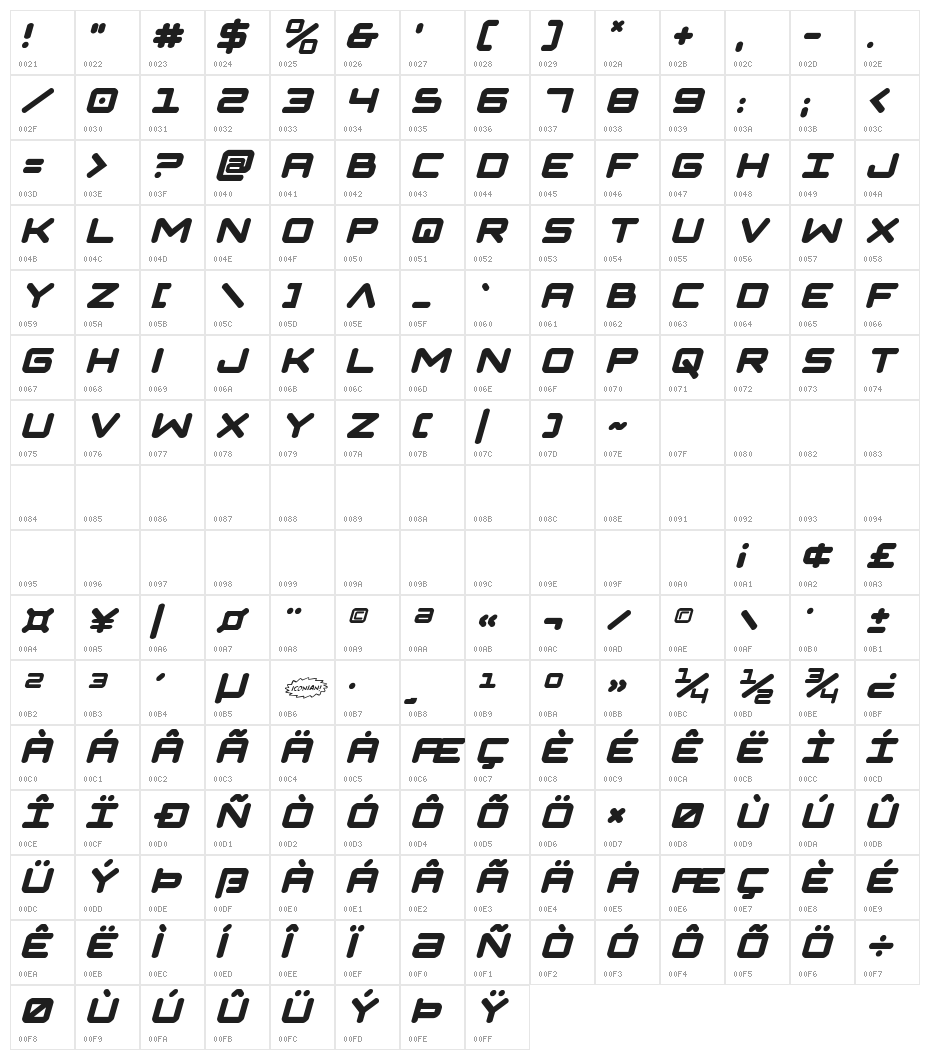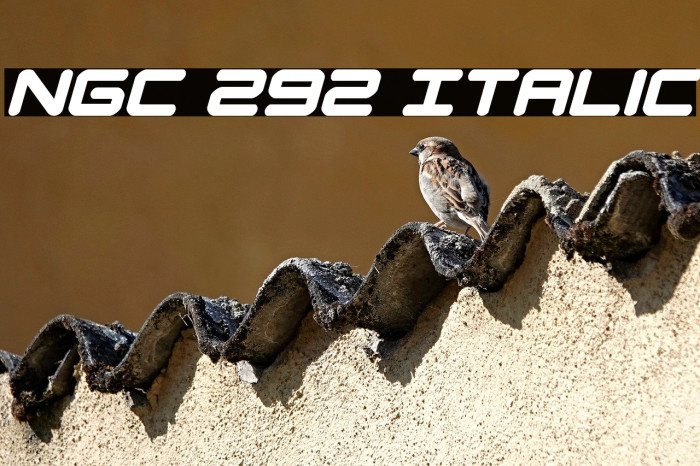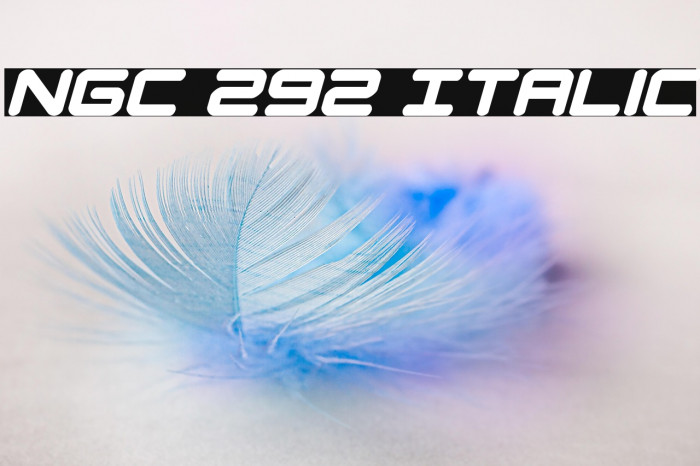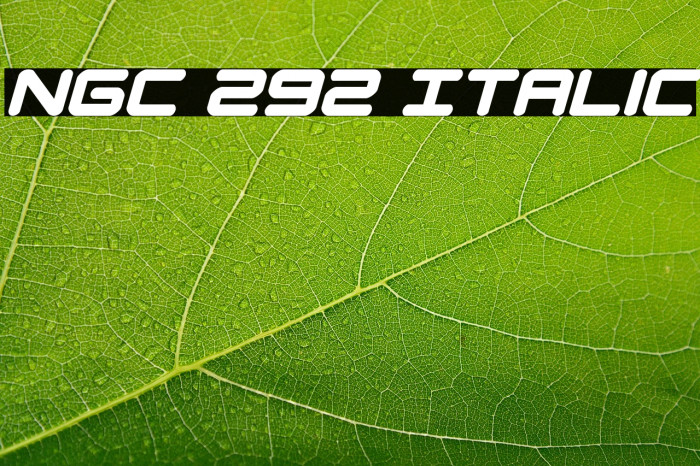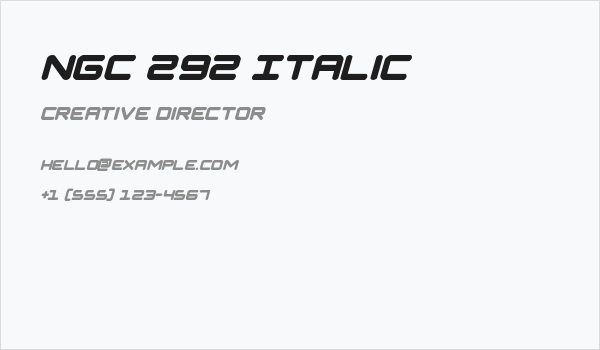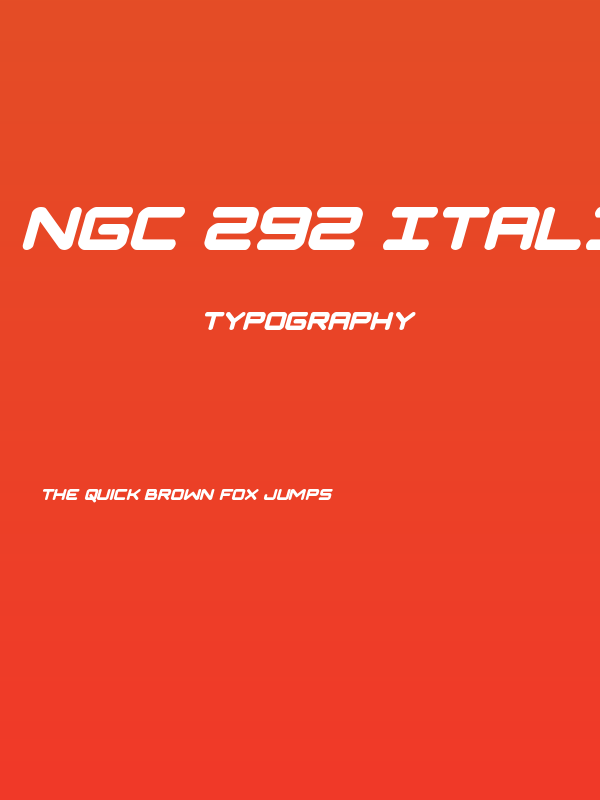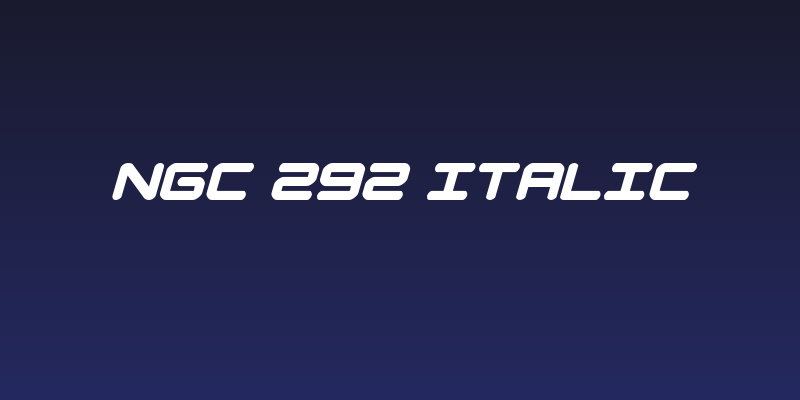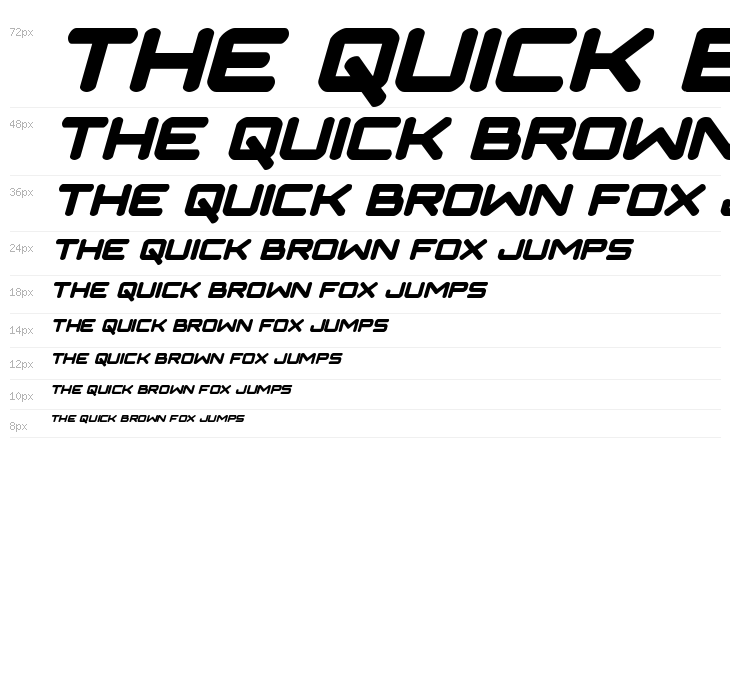
NGC 292 Italic Font
NGC 292 Italic Description
This font features a modern, italicized design with a sleek and futuristic appearance. The characters are slightly slanted, giving a sense of motion and dynamism. The strokes are consistent in thickness, providing a uniform look across all characters. The font includes both uppercase and lowercase letters, numerals, and a variety of special characters. The rounded edges and smooth curves contribute to its contemporary style, making it suitable for digital and tech-related projects.
| Use Case | Headlines, Logos, Digital interfaces |
| Proposed Projects | Ideal for technology branding, digital interfaces, video game graphics, and futuristic-themed designs. |